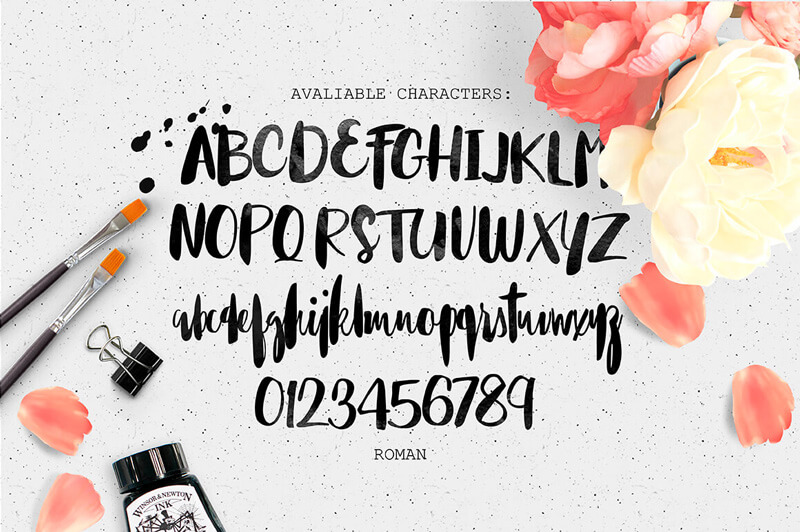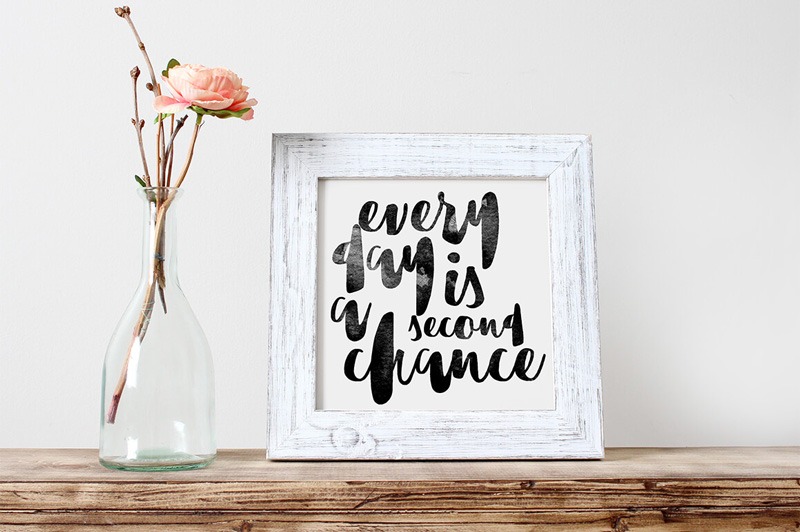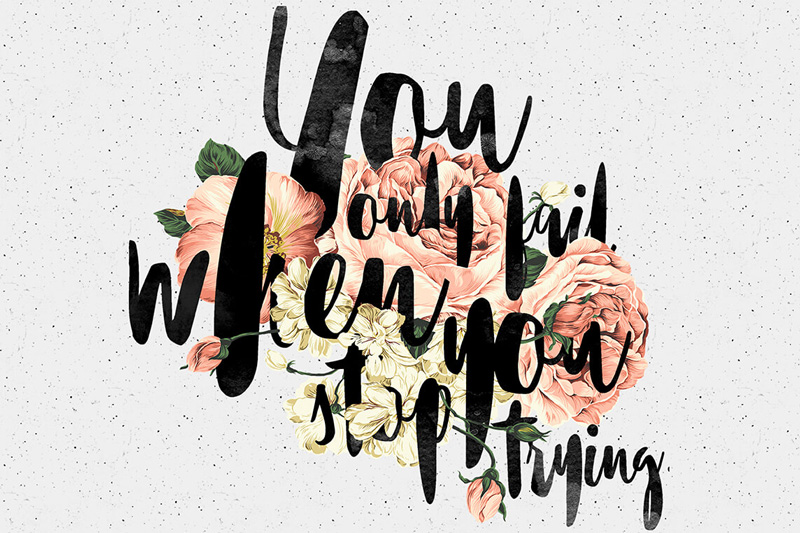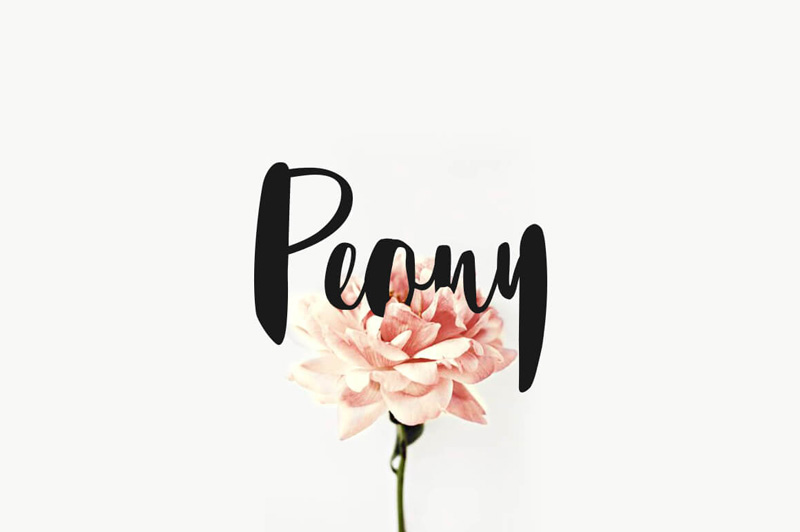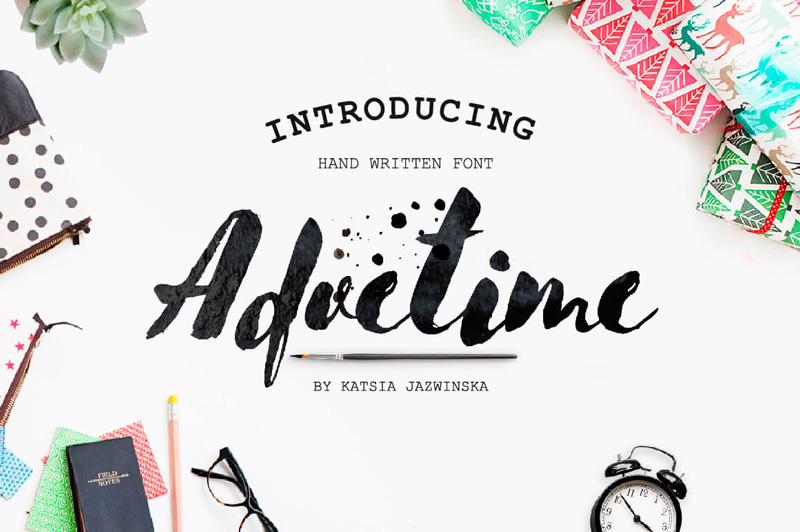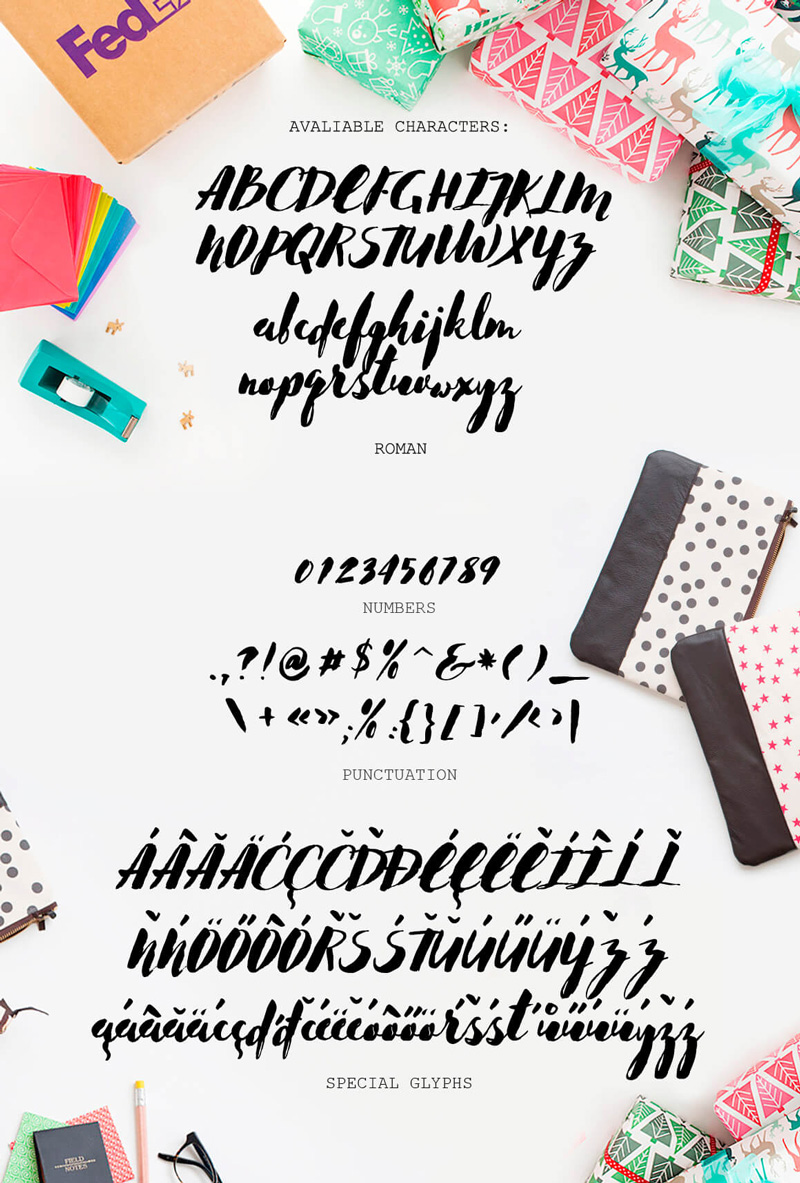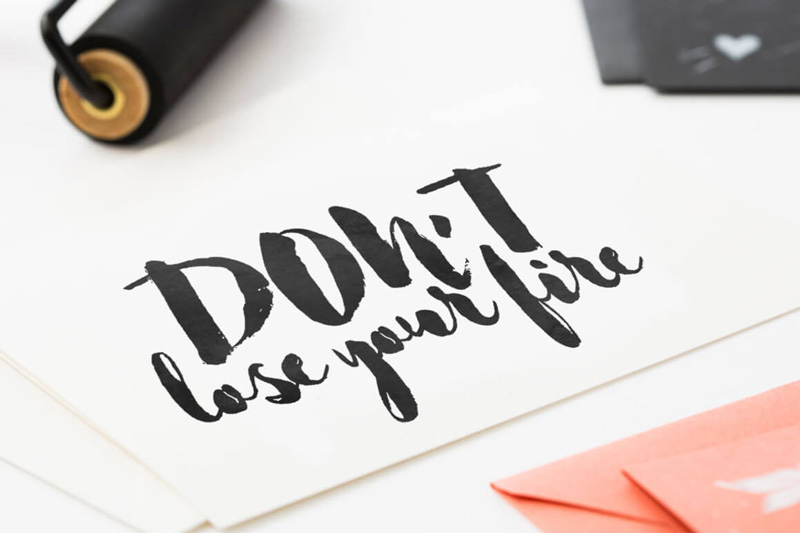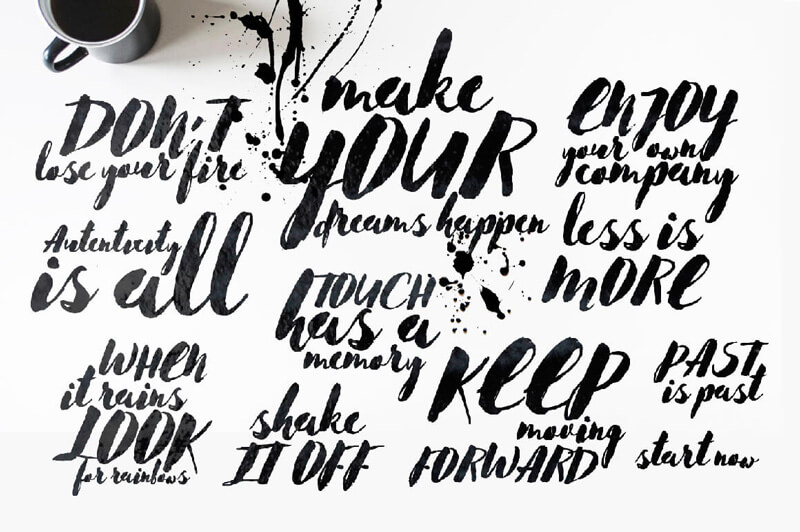
8 Incredible Written Fonts
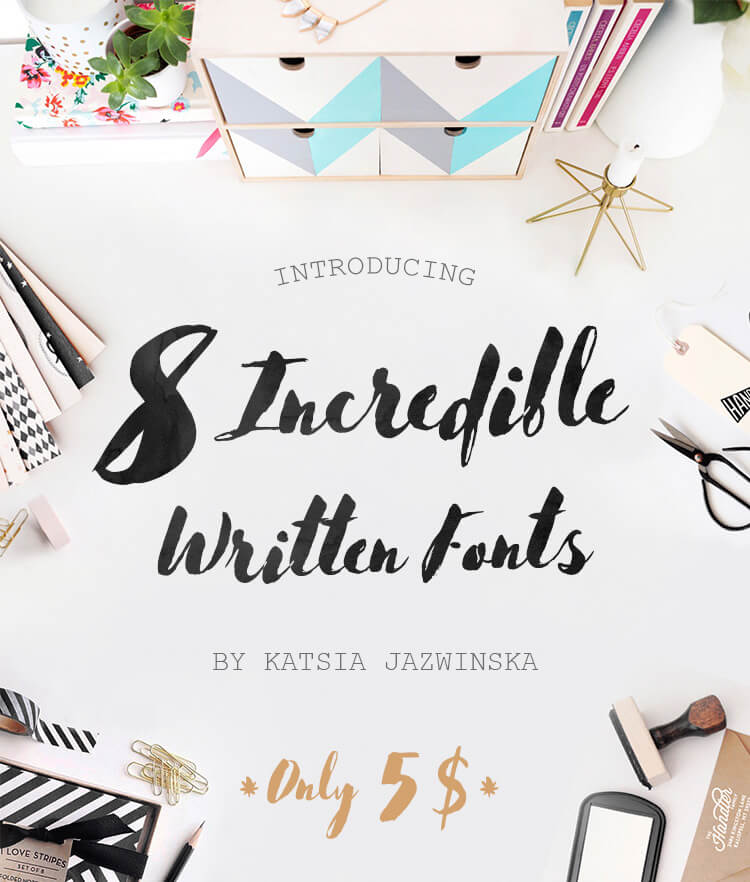
Struggling for design inspiration? Elevate your projects with our incredible written font bundle. GraphicLoot and Katsia Jazwinska bring you 8 stunning fonts. These fonts are designed to add a unique dimension to any creative endeavor. Whether you’re crafting wedding invitations, designing business cards, or creating eye-catching t-shirt designs, this bundle has you covered. Make your design toolbox truly magical.
This collection features a diverse range of styles. You’ll find the elegant Mythbuster Script Font. The bold Advetime Brush Script is also included. Berow Script offers a distinct charm. Markella Awesome Script makes a statement. Shrewdy Hand Script provides a personal touch. Sunbreath Pro adds a modern feel. Alternate Grunge Glyphs bring an edgy vibe. Finally, Sunbreath Hand Written Font offers a classic handwritten look. This written font bundle provides all the touches you need for professional and creative projects.
Discover the Power of Our Written Font Bundle
The Markella font, in particular, commands attention with its depth. It’s perfect for adding a sophisticated flair. This written font bundle is ideal for a variety of applications. Use it for branding, marketing materials, or personal crafts. The commercial license ensures you can use these fonts with confidence. Expand your design possibilities today.